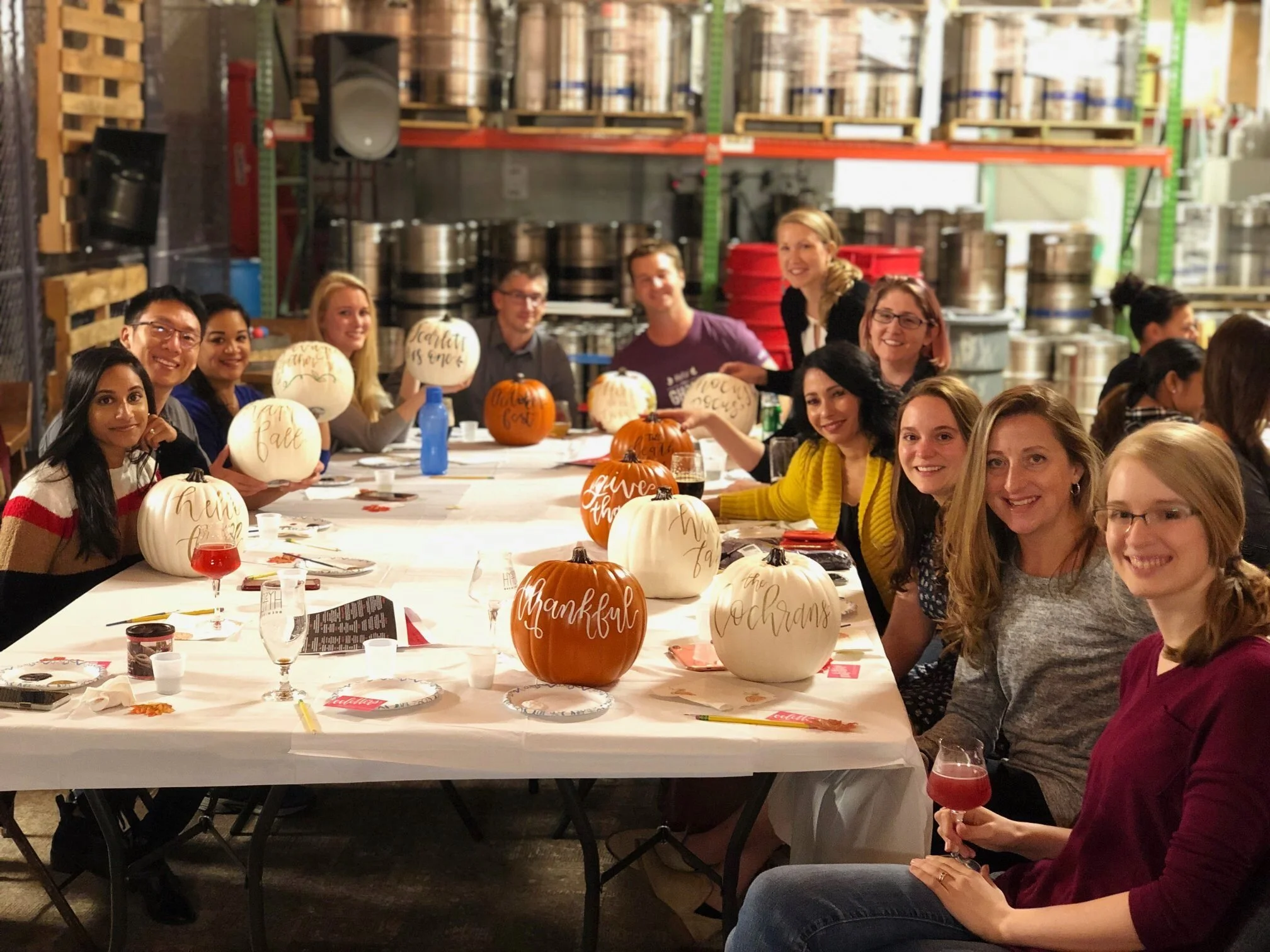
Hand Lettered Pumpkins Class Recap
/In the spirit of fall fun, for October’s class we switched things up from the usual welcome mats classes and did hand lettered pumpkins at Hysteria Brewing Company! This class was my biggest yet, with 28 attendees.
Attendees had the option to choose real or faux pumpkins in orange or white. White faux pumpkins were the most popular choice! The faux pumpkins were a great way to make a lasting piece of home decor, since they can be put out again year after year.
Everyone sent me the phrases they wanted on their pumpkins before the class (we had lots of “hello fall”s!) and I sketched the letters out in a basic outline in pencil.
When people arrived, they got a drink ticket for a beer of their choice, and I went over upstrokes & downstrokes and how to do fauxligraphy to give their pumpkins that fancy modern calligraphy look. After that, they chose what color paints they wanted to work with and got painting!
Attendees got really creative with their pumpkins, adding leaves, vines, using different colors…it was so fun to see what they came up with!